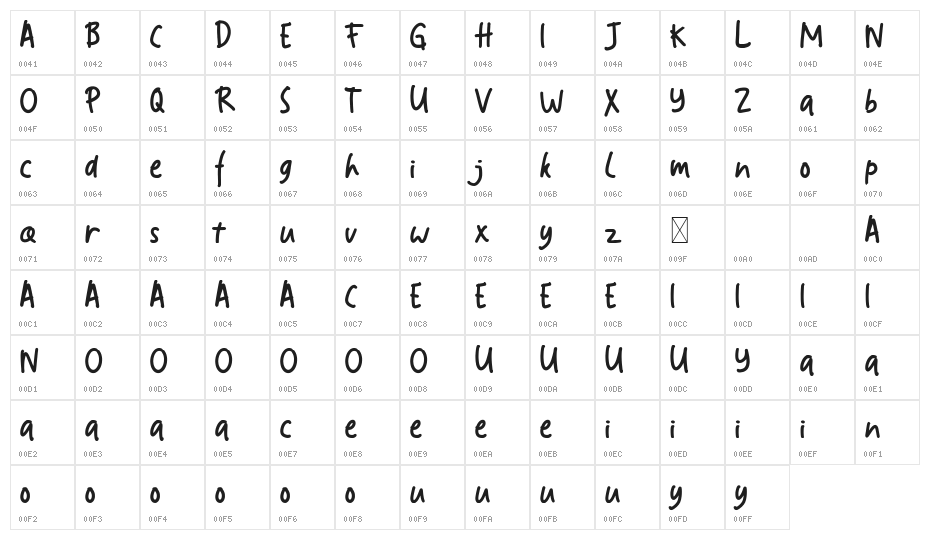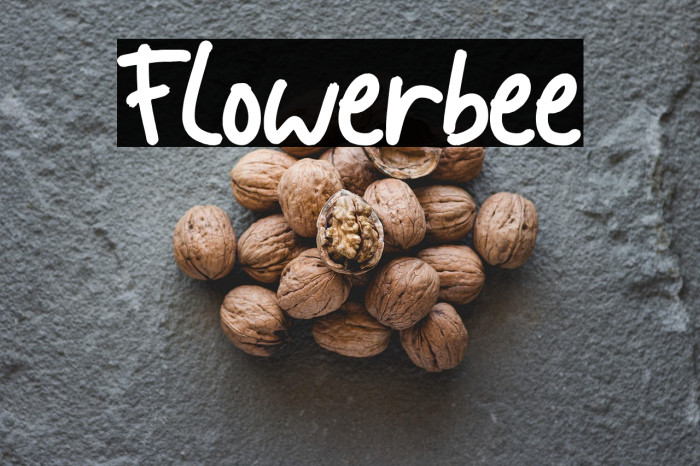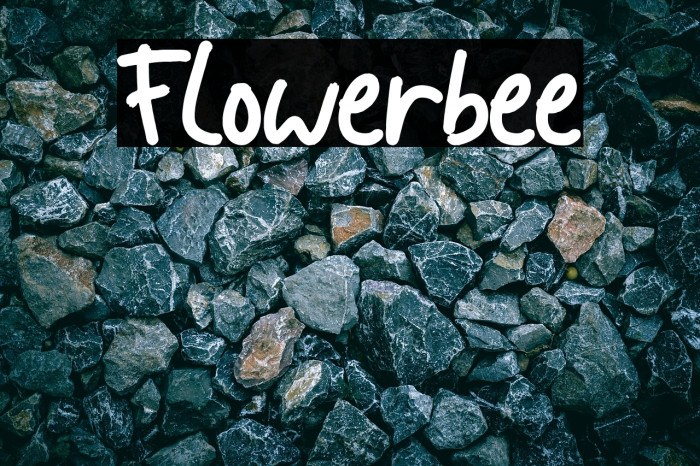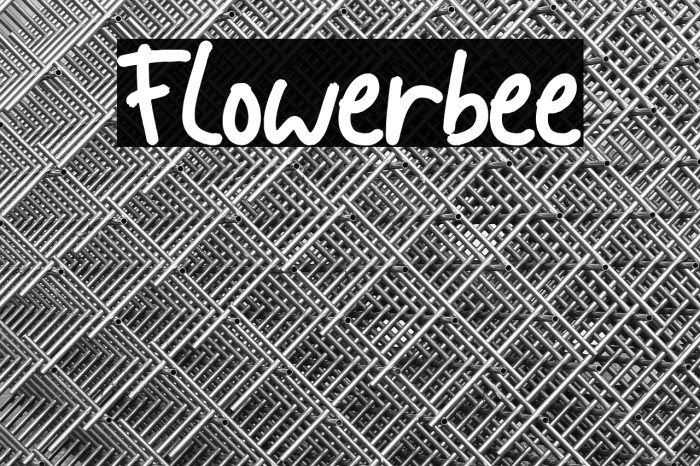
Flowerbee Font
Flowerbee Description
This font features a playful and casual handwritten style, characterized by its bold and slightly irregular strokes. The letters have a natural flow, with rounded edges and a consistent thickness that gives it a friendly and approachable appearance. The uppercase and lowercase letters maintain a cohesive look, while the numbers and special characters blend seamlessly with the overall design. This font's informal style makes it ideal for projects that require a personal touch or a relaxed vibe.
| Overall Style | Casual |
| Use Case | Headlines, Logos, Informal Text |
| Proposed Projects | Ideal for greeting cards, children's books, personal blogs, and casual branding. |